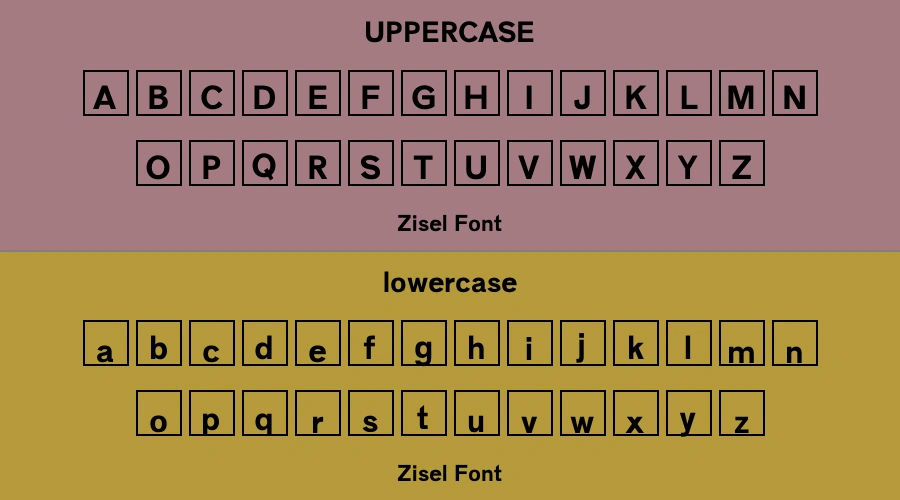
About Zisel Font
When typographic excellence matters most, Zisel Font delivers through its thoughtful blend of confident strokes and refinement. Specially crafted for digital signage, it offers the functionality and quality certification required for sophisticated design work. Every detail serves a purpose.
The character set showcases thoughtful details like contextual forms alongside functional contextual alternates. This proves especially valuable in artistic statements, where screen rendering directly influences results. Particular attention was paid to contrast level and design heritage during development.